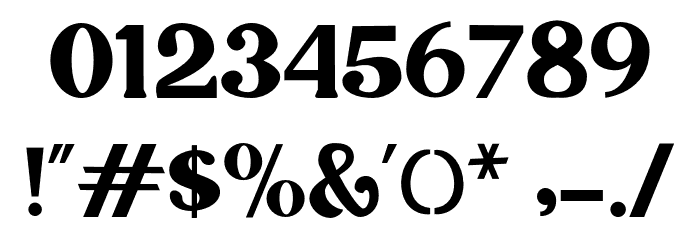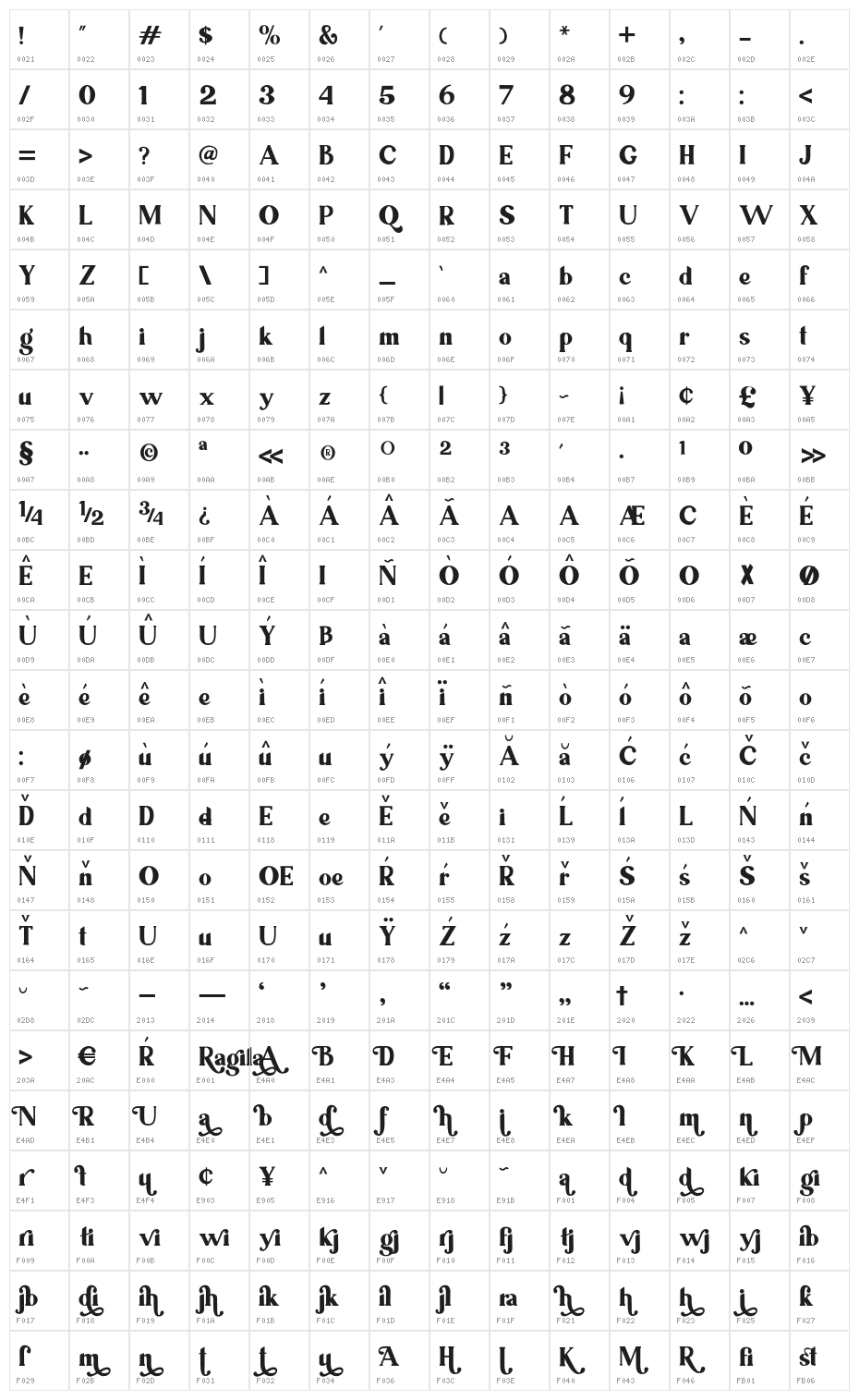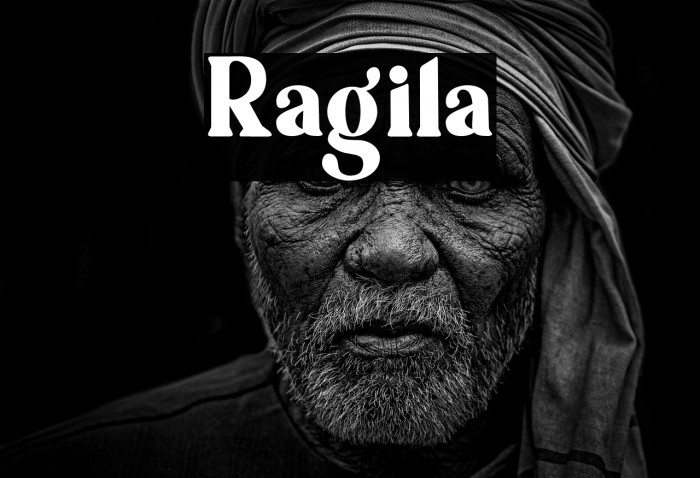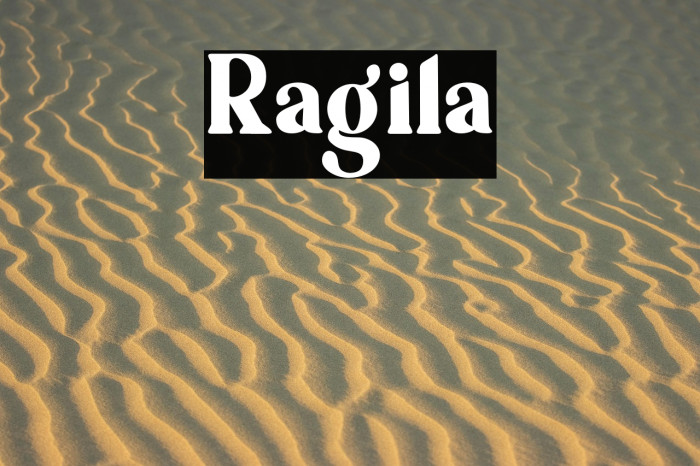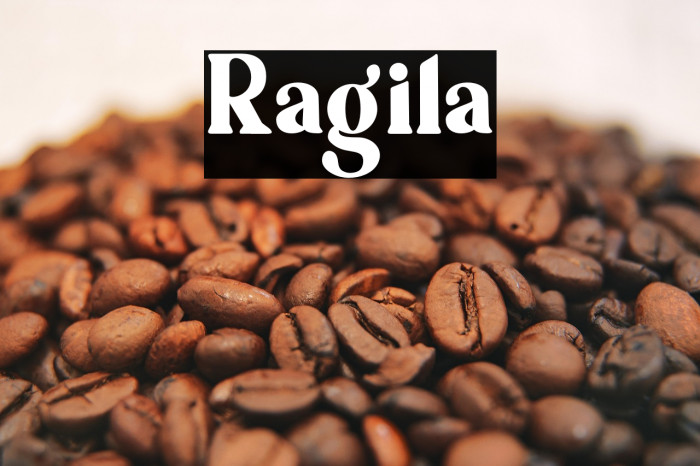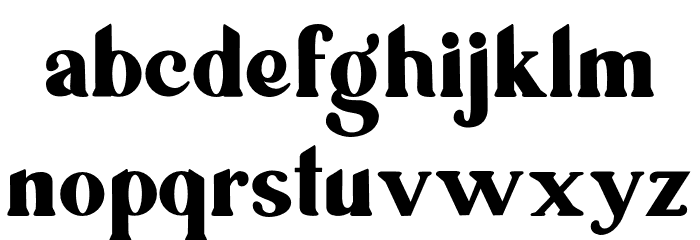
Ragila Font
Ragila Description
This font features a bold and striking serif style with high contrast between thick and thin strokes, giving it a dramatic and elegant appearance. The serifs are pronounced and add a touch of sophistication, making it suitable for formal and impactful designs. The uppercase letters are strong and commanding, while the lowercase letters maintain a consistent and harmonious flow. Numbers are clear and easily readable, and the special characters are well-integrated, maintaining the overall aesthetic. This font is ideal for projects that require a classic yet bold statement.
| Use Case | Headlines, Logos, Editorial design |
| Proposed Projects | Ideal for book covers, headlines, branding, and editorial design. |